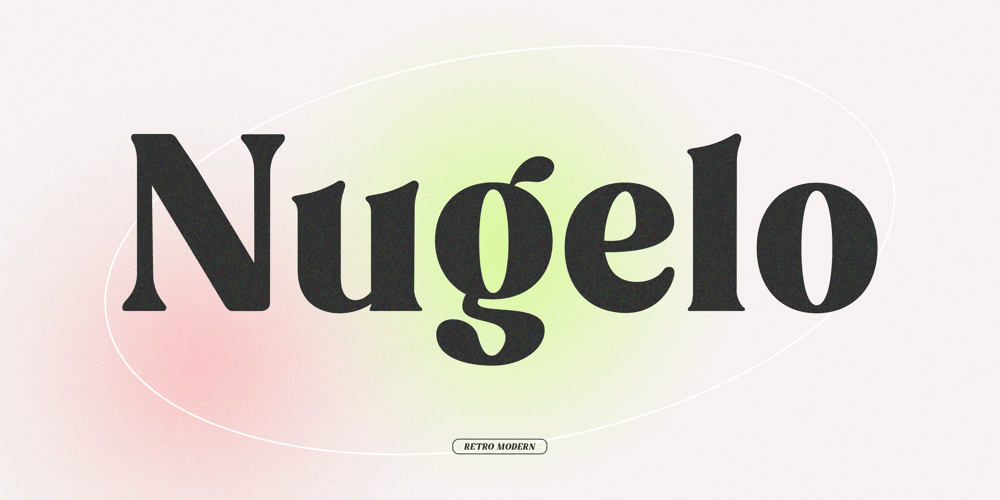
Nugelo Font Family was designed by Agam Rahmadan and published by Viswell. Nugelo contains 1 styles and family package options. Nugelo is a retro modern serif font, comes with stylishtic alternates and ligaturesNugelo will be suitable for your various design needs such as branding, logo, poster, headlines and many others.